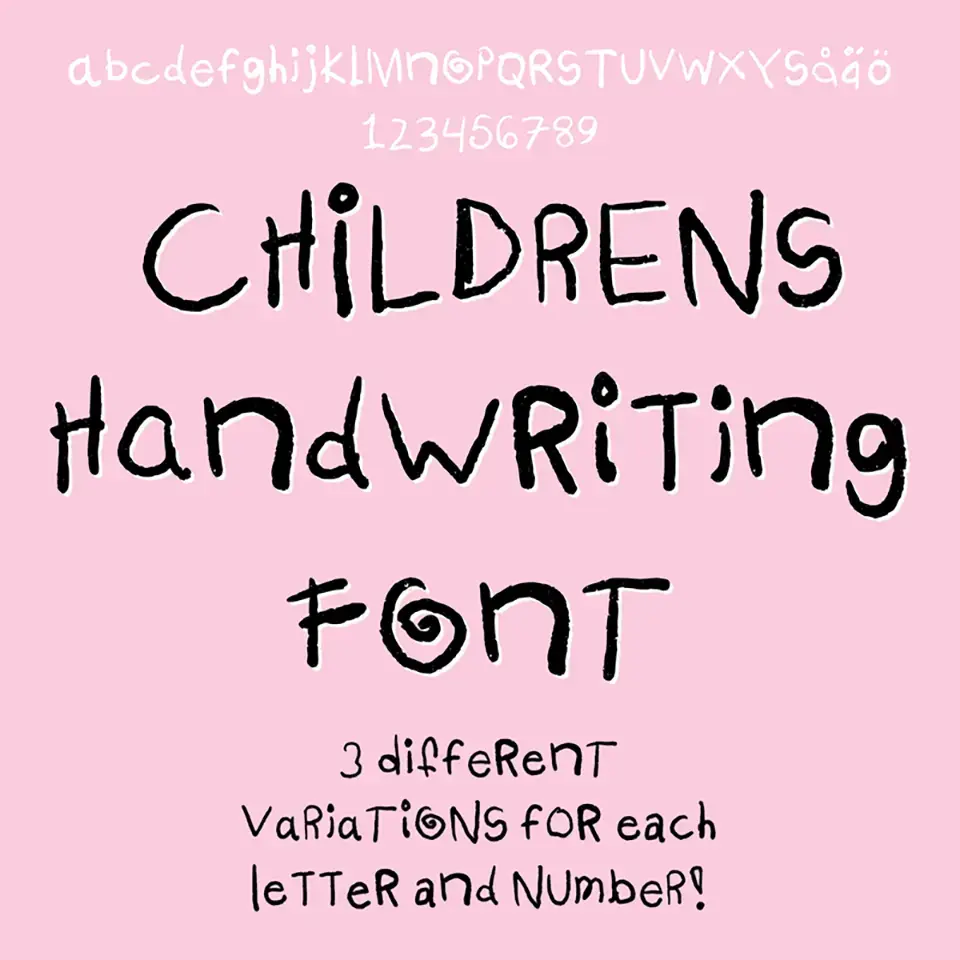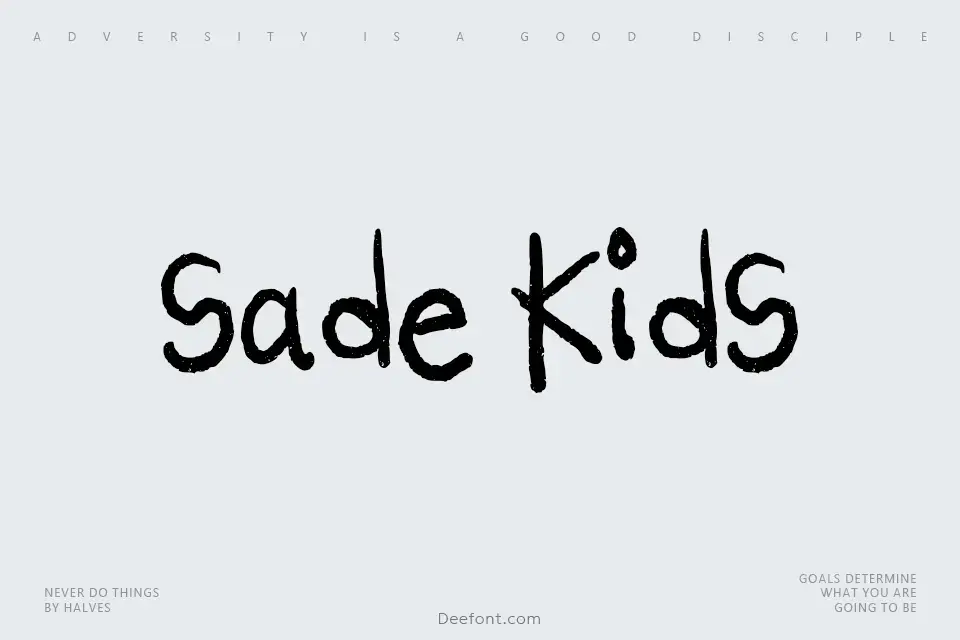
Sade Kids Font
Sade Kids is a delightful handwriting font featuring playful, childlike letterforms with charming irregularity and semi-light weight. Its trashy handwritten aesthetic combines whimsy with casual appeal, making it ideal for grungy concert posters, children’s book covers, birthday parties, greeting cards, and creative branding projects. The font’s semi-light character and diverse letter styles deliver dynamic visual interest suitable for headlines, display text, and festive decorations that require a friendly, youthful touch.